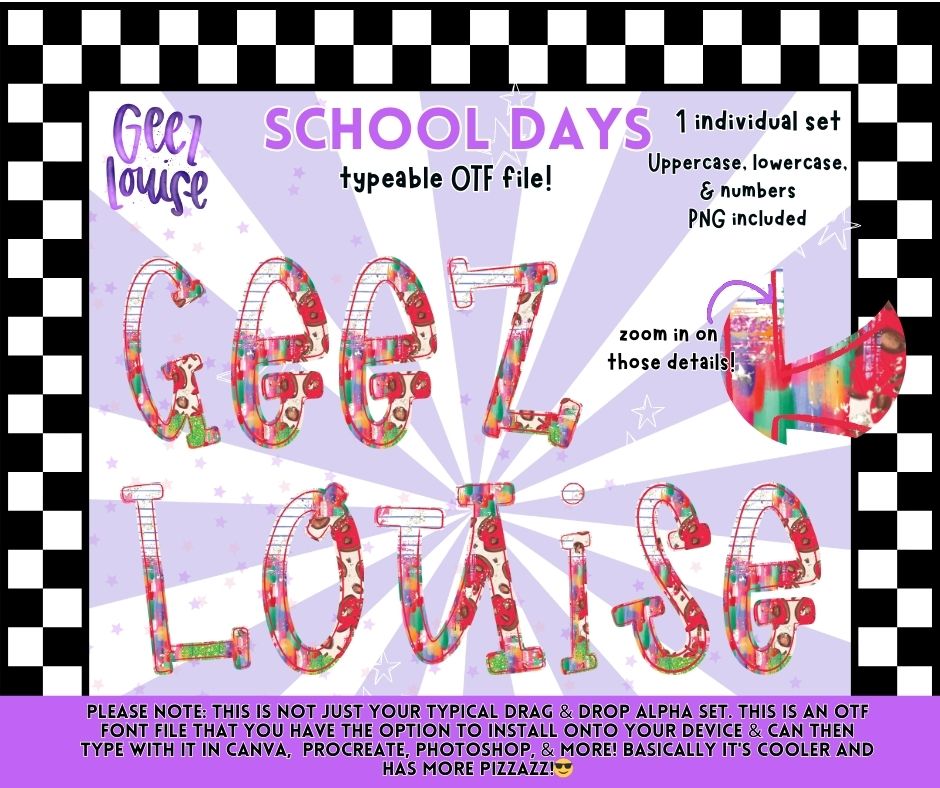
School Days OTF Font & PNG Alpha Set | Typeable School Lettering | Uppercase Lowercase Numbers | Back to School Digital Download
Bring a little extra personality to your school designs with the School Days OTF Alpha Set! ✏️🎒
This fun and detailed alphabet set includes a fully typeable OTF font file, allowing you to install it on your device and type directly in your favorite design programs. No more dragging and dropping letters one by one.
Each letter features colorful school-inspired elements that make it perfect for back-to-school graphics, teacher designs, classroom projects, and playful apparel.
Whether you're creating shirts, stickers, digital graphics, or printables, this set gives you creative flexibility and crisp detail.